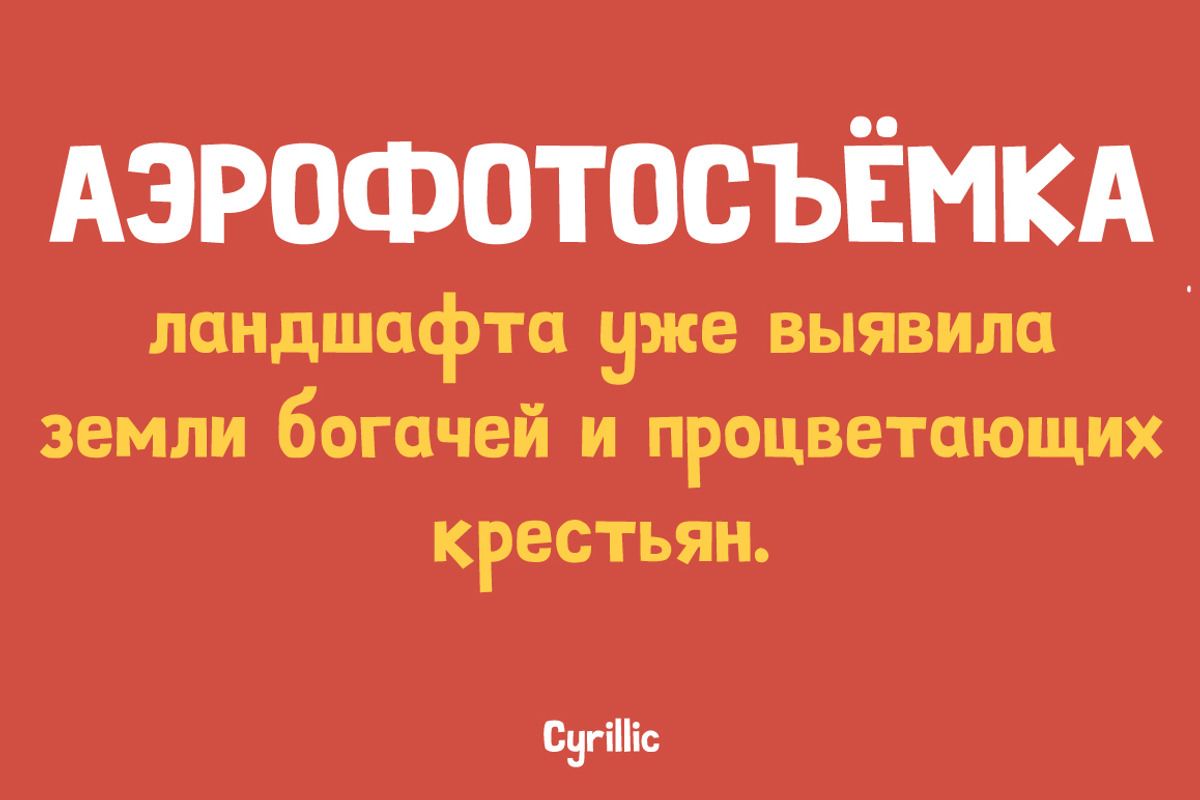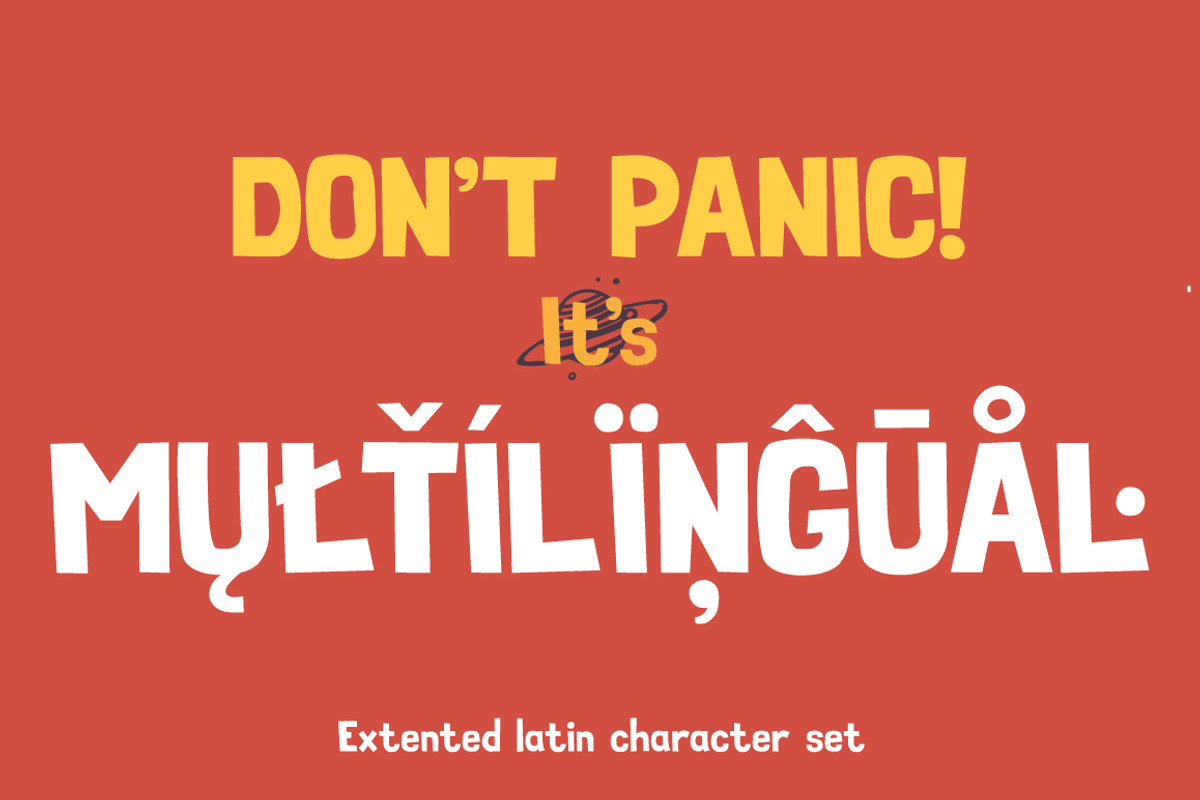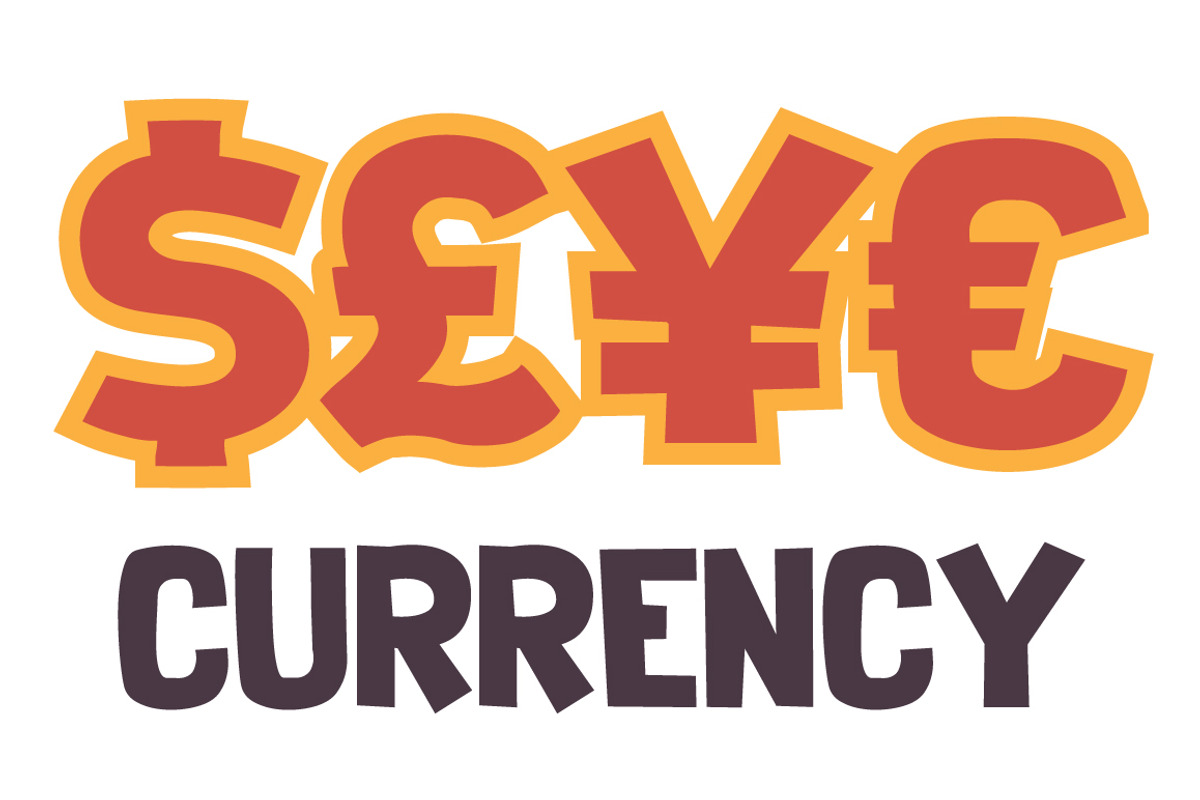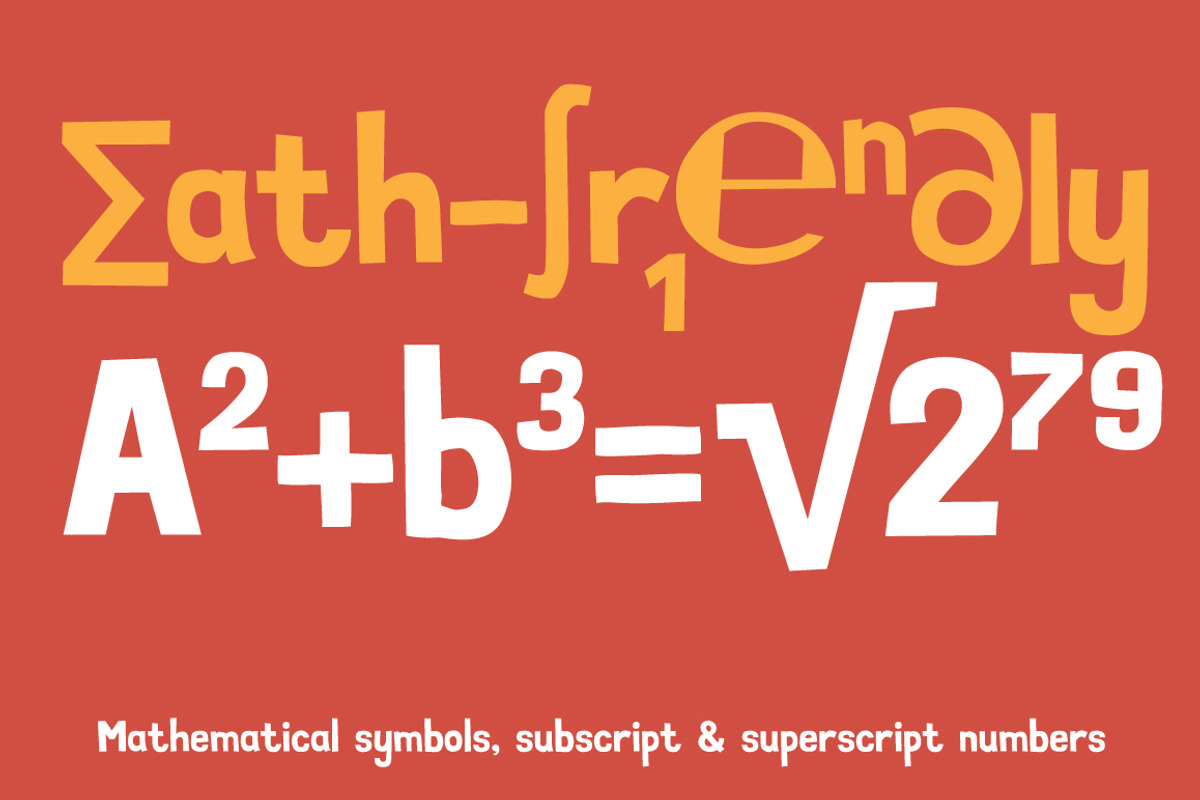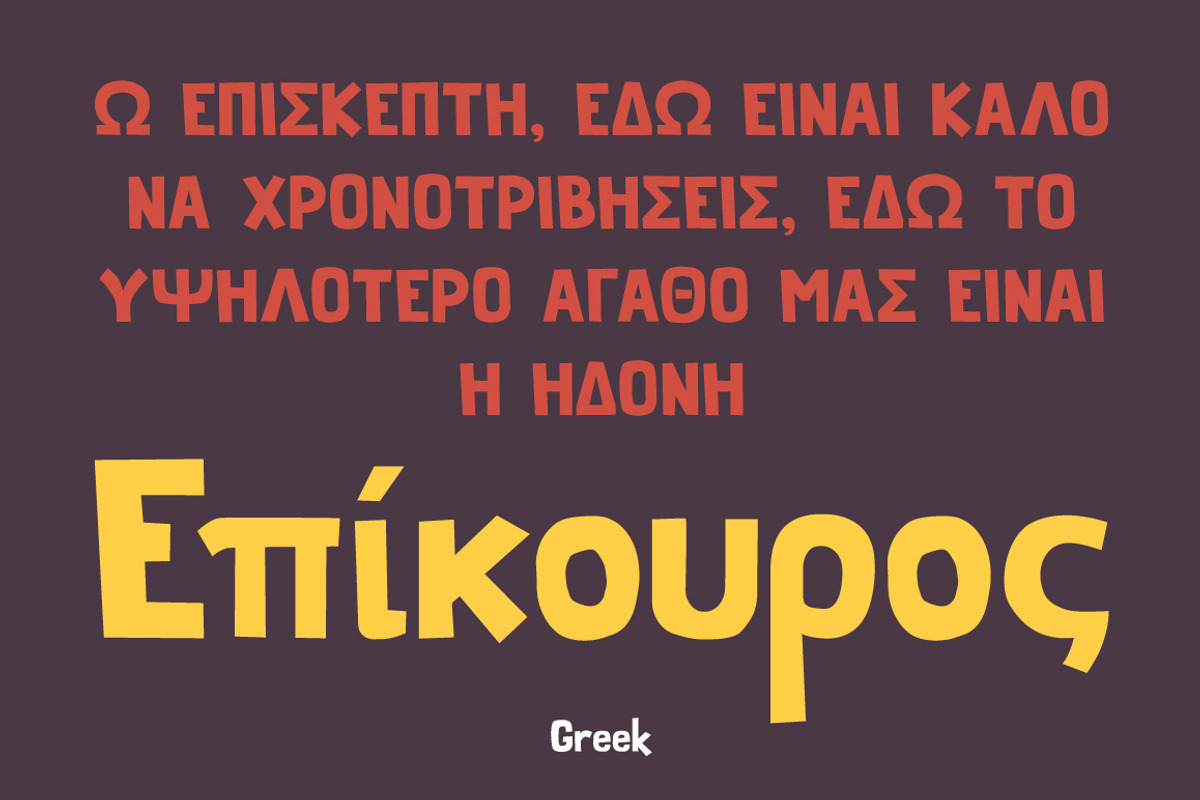
Simple Stamp display font
Simple Stamp display font by Youhhou is a font selected for branding, posters, packaging, typography.
- Extented latin character set Cyrillics Greek character set Mathematical symbols, subscript and superscript numbers Punctuation and special c
Why Simple Stamp display font is worth a look
Simple Stamp display font by Youhhou fits naturally into Branding, posters, packaging, typography.